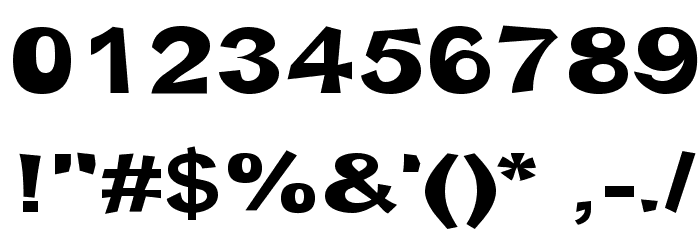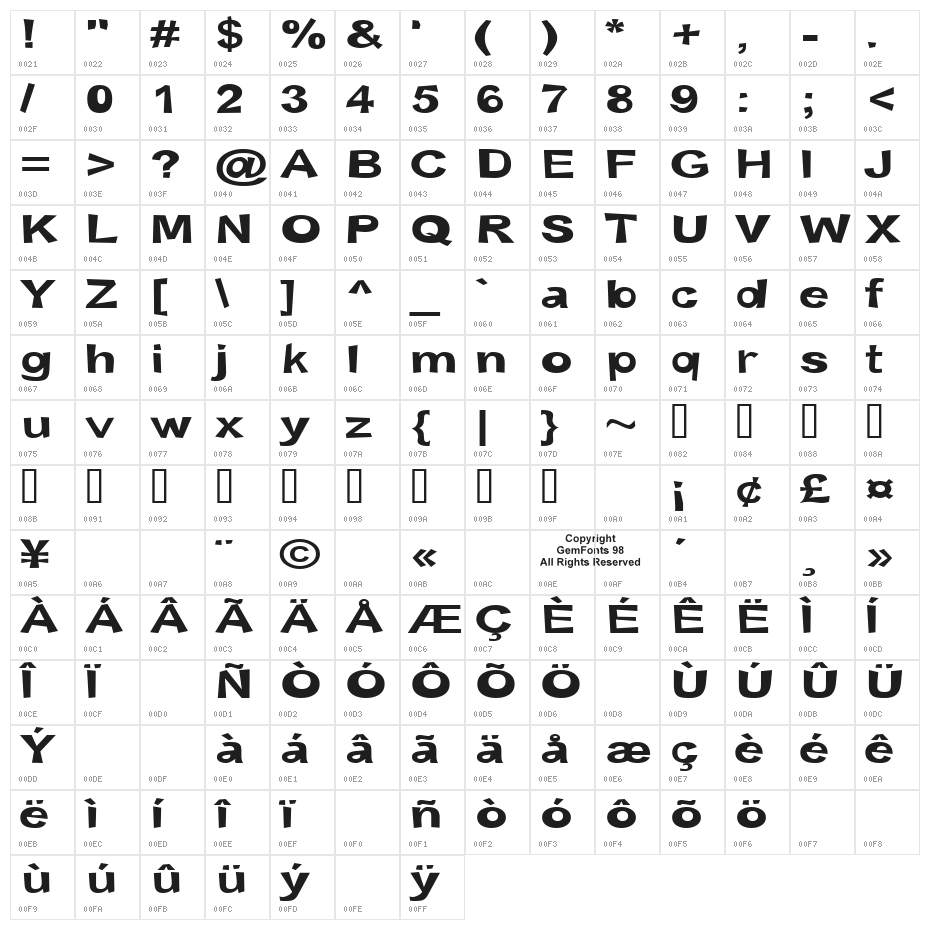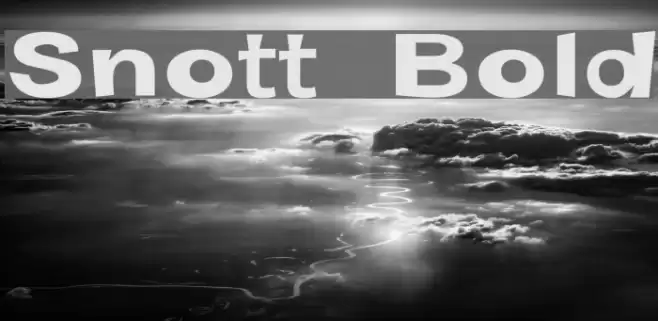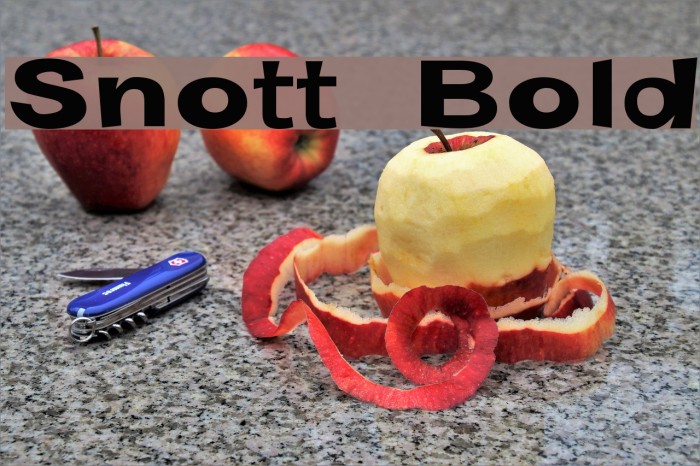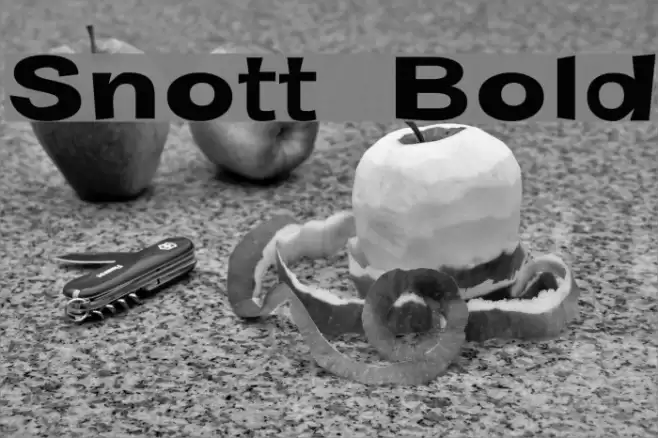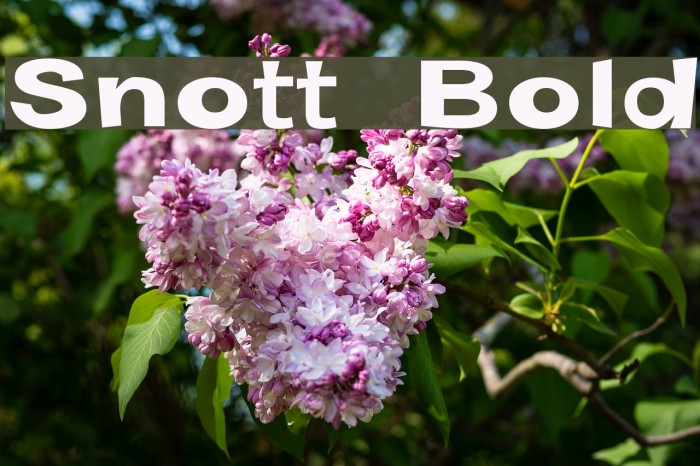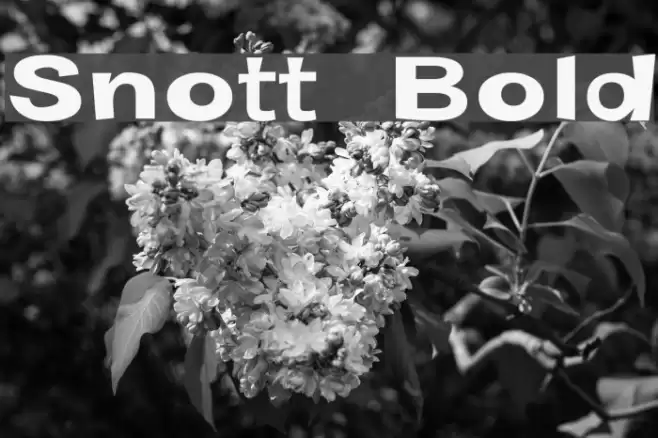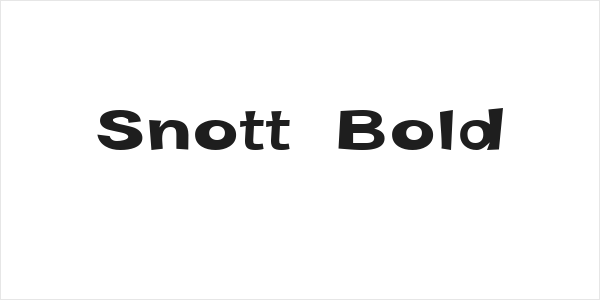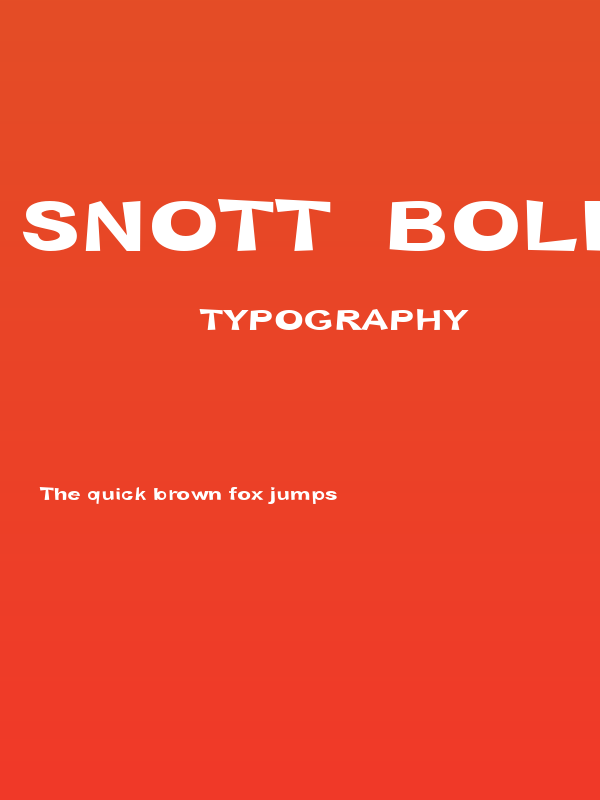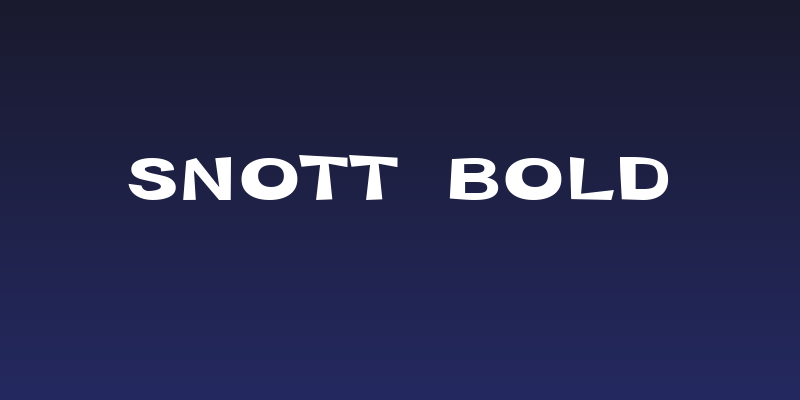
Snott Bold Font
Snott Bold Description
This font features bold, thick strokes with a strong presence, making it ideal for attention-grabbing headlines and impactful designs. The uppercase letters are robust and commanding, while the lowercase letters maintain a consistent weight, providing a harmonious balance. The numerals are clear and easily distinguishable, ensuring readability in various contexts. Special characters are well-defined, adding versatility to the font's usage. The overall design is modern and assertive, suitable for projects that require a bold statement.